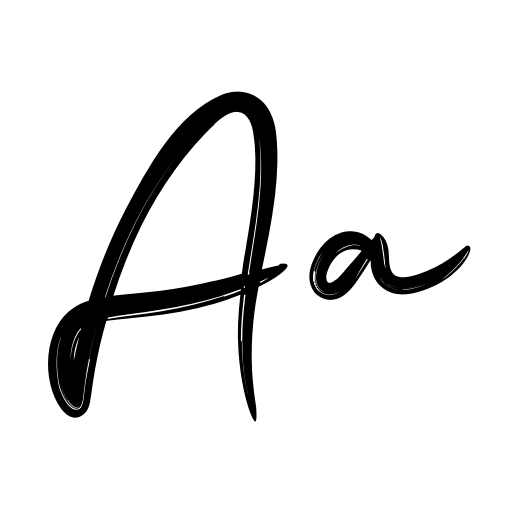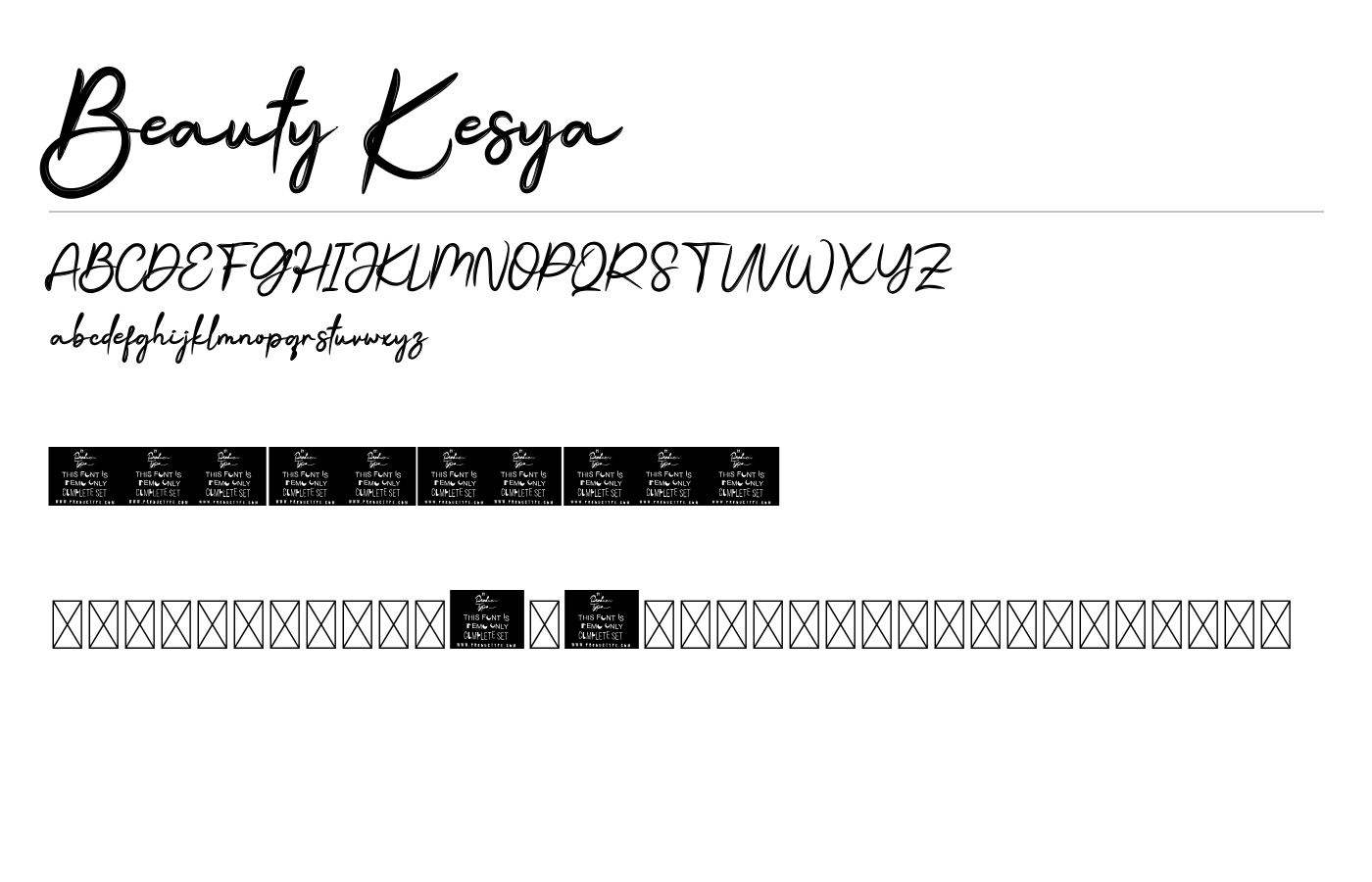
Beauty Kesya is a stylish script font that features a modern, handwritten look with flowing, smooth strokes and a light weight. Its elegant and natural curves create a graceful and personal feel, making it perfect for branding, invitations, and creative projects that want to convey warmth and sophistication. This font works especially well in logos and headlines where a touch of charm and individuality is desired.
Beauty Kesya Font
About Beauty Kesya Font